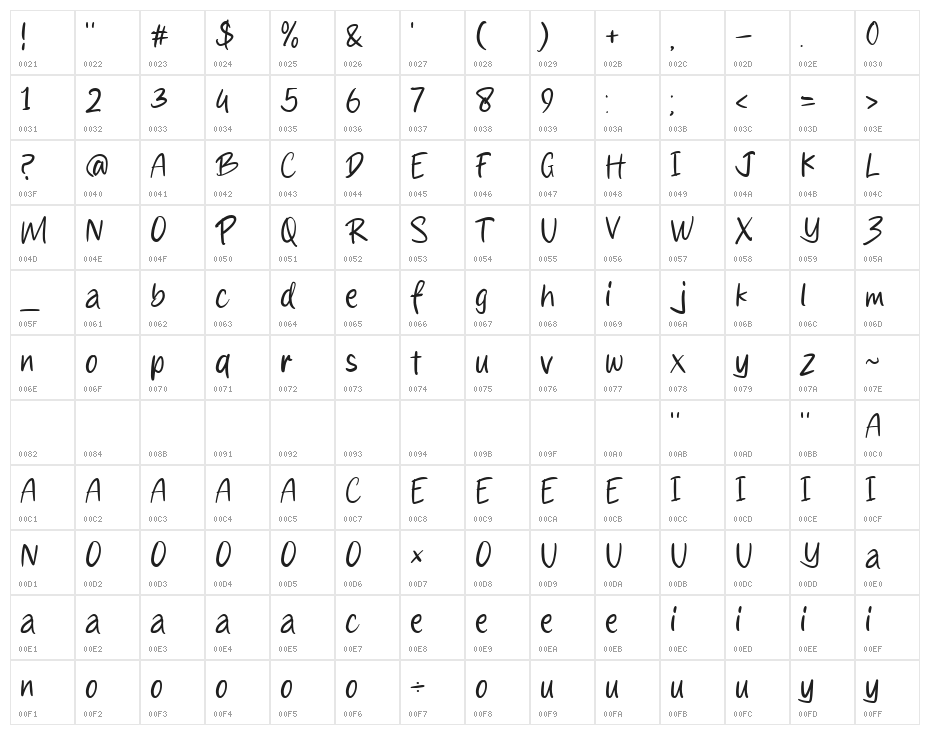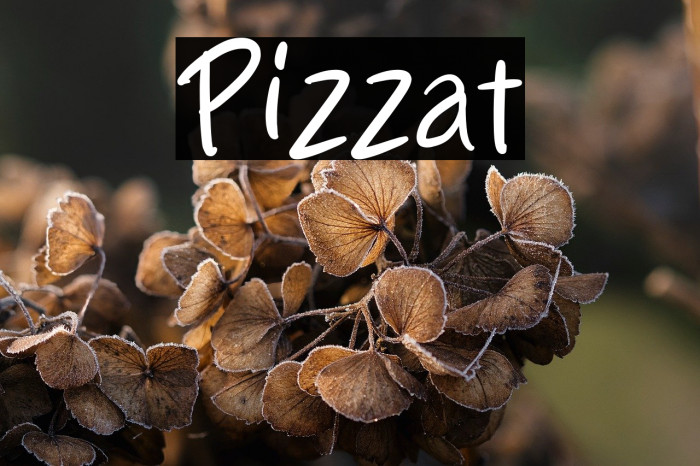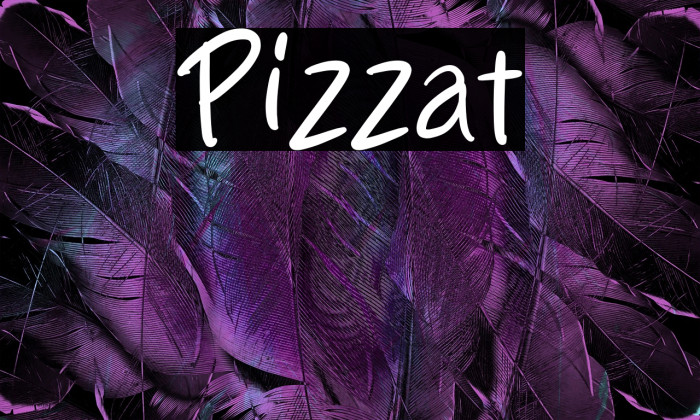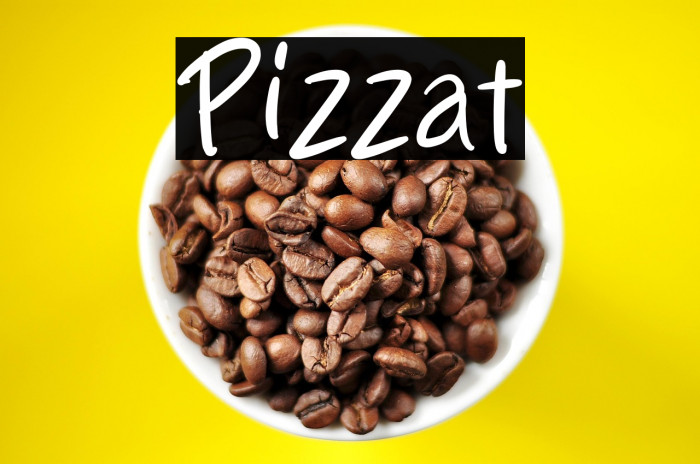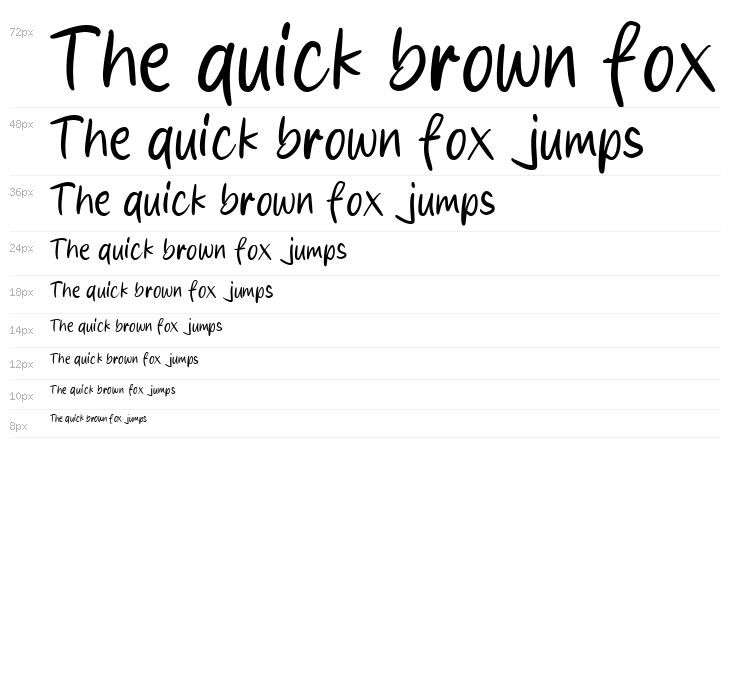
Pizzat Font
Pizzat Description
This font features a playful and casual handwritten style, characterized by its smooth, flowing curves and slightly irregular strokes. The letters have a natural, organic feel, with varying stroke widths that add to its informal charm. The uppercase and lowercase letters maintain a consistent style, while the numerals and special characters complement the overall aesthetic. This font is ideal for projects that require a personal touch, conveying warmth and approachability.
| Overall Style | Casual |
| Use Case | Logos, Headlines, Informal communications |
| Proposed Projects | Greeting cards, invitations, personal branding, social media graphics, and informal event posters. |